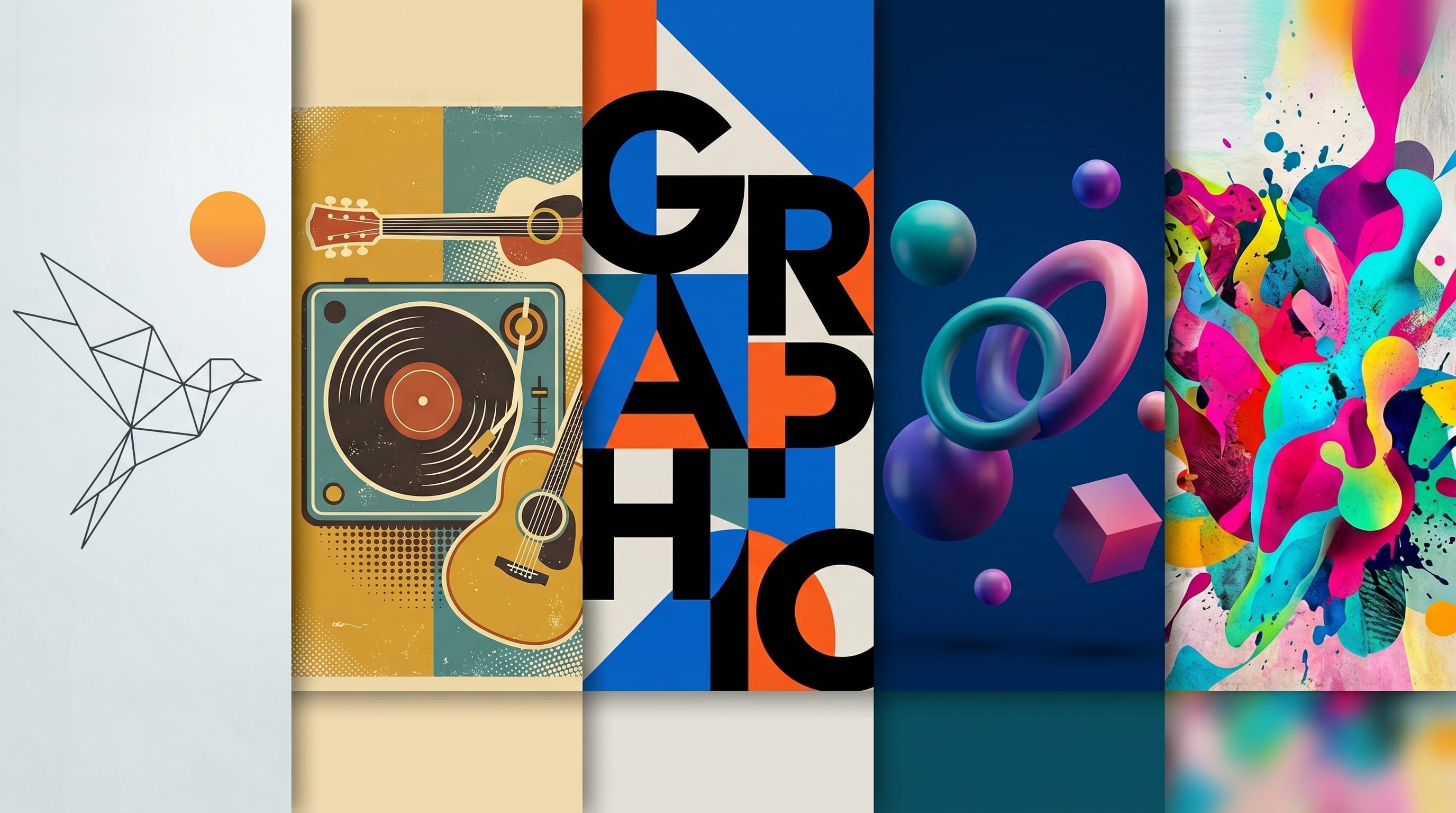
Poster Design Trends You Should Follow for Better Results
If you want to create impactful visuals, understanding current poster design trends is essential. Many designers struggle to keep their work fresh because they rely on outdated styles. By following the latest poster design styles, you can create visuals that feel modern, engaging, and relevant.
In this guide, you’ll explore the most effective poster design trends along with practical tips you can apply right away. Whether you are a student or a professional designer, these insights will help you improve your creative results using poster design trends.
Why Poster Design Trends Matter for Designers
Staying updated with poster design styles helps you stay competitive and creative.
• Fresh visual style
• Better audience engagement
• Stronger creative direction
When you follow poster design styles, your work feels more relevant and appealing.
Minimalist Poster Design Trends for Clean Layouts
Minimalism remains one of the strongest poster design styles.
1. Simple Color Palette
Use limited colors for a clean look.
2. Clear Typography
Focus on readability and hierarchy.
3. Balanced Layout
Use spacing effectively.
This approach keeps your designs simple while still impactful.
Bold Typography in Poster Design Trends
Typography is a major part of modern poster design styles.
1. Large Headline Text
Grab attention instantly.
2. Creative Font Pairing
Mix styles for visual interest.
3. Strong Contrast
Make text stand out from the background.
Bold typography is a key element in current poster design styles.
Retro and Vintage Poster Design Trends
Retro styles are making a comeback in poster design styles.
1. Grain Texture Effects
Add depth and character.
2. Muted Color Palettes
Create a nostalgic feel.
3. Classic Typography Styles
Use fonts inspired by past eras.
These elements make retro-inspired poster design styles popular again.
3D and Depth Effects in Poster Design Trends
Adding depth is one of the most exciting poster design styles.
1. 3D Typography
Create dimensional text.
2. Shadow and Lighting Effects
Enhance realism.
3. Layered Composition
Build visual depth.
These techniques make your poster design styles more dynamic.
Abstract and Experimental Poster Design Trends
Creative freedom is growing in poster design styles.
1. Geometric Shapes
Use bold and structured elements.
2. Gradient Colors
Create smooth transitions.
3. Unusual Layouts
Break traditional design rules.
These styles push the boundaries of poster design styles.
AI Generated Visuals in Poster Design Trends
AI is influencing modern poster design styles.
1. AI Illustration
Generate unique visuals quickly.
2. AI Text Effects
Create creative typography.
3. Hybrid Design
Combine AI with manual design.
These innovations are shaping future poster design styles.
Color Trends in Poster Design Trends
Color plays a major role in poster design styles.
1. High Contrast Colors
Improve readability.
2. Neon and Bright Colors
Create bold visuals.
3. Soft Pastels
Add a calm and modern feel.
Choosing the right colors enhances your poster design styles.
These tools support your poster design styles workflow.
Common Mistakes in Poster Design Trends
Avoid these mistakes:
• Overusing effects
• Poor typography choices
• Lack of hierarchy
• Ignoring readability
Fixing these issues improves your poster design styles results.
How to Use Poster Design Trends Effectively
To apply poster design styles successfully:
1. Choose one main style
2. Keep your layout simple
3. Focus on readability
4. Test your design
This approach ensures better results.
How Poster Design Trends Improve Creative Results
Using modern poster design styles helps you:
• Create more engaging visuals
• Improve design quality
• Stay relevant in the industry
Designers who follow poster design styles can produce more impactful work.
Final Thoughts
Understanding and applying poster design trends is essential for creating modern and effective designs. By combining creativity with current styles, you can produce visuals that stand out and communicate clearly.
Start experimenting with these trends and refine your approach over time. With the right balance, your use of poster design styles will lead to better creative results and stronger visual impact.